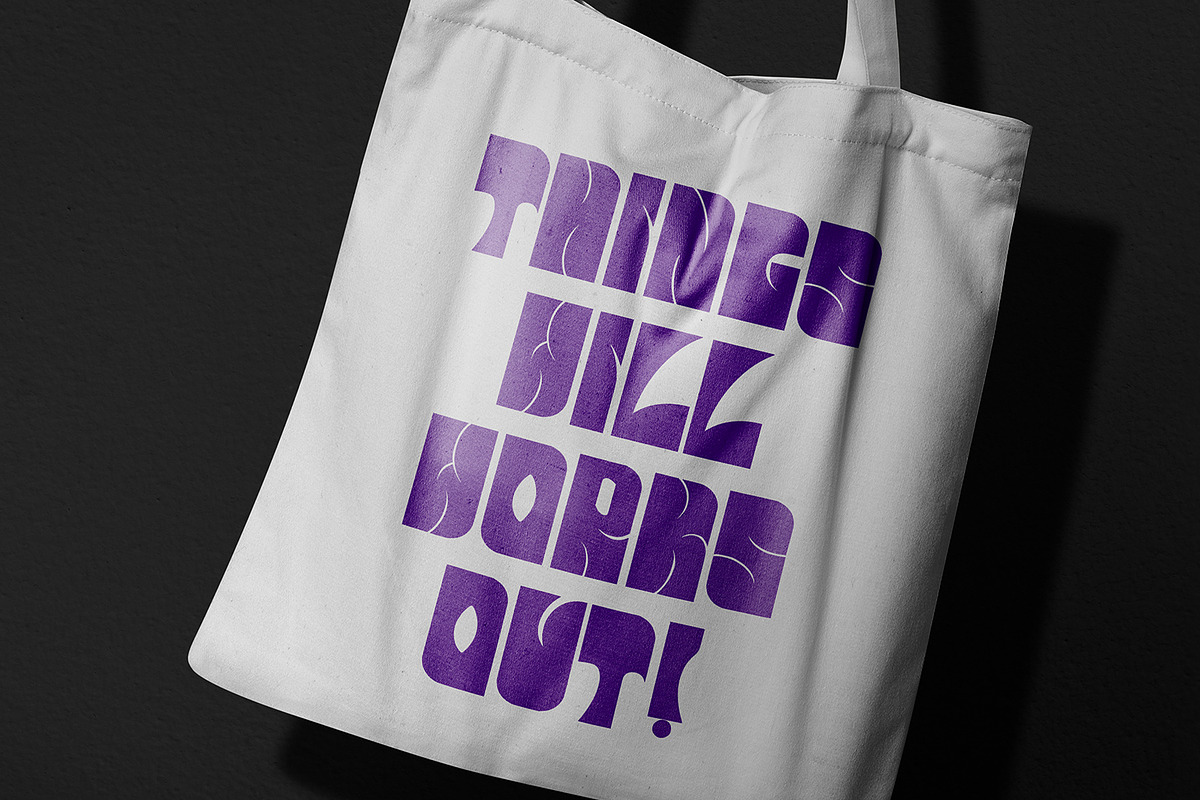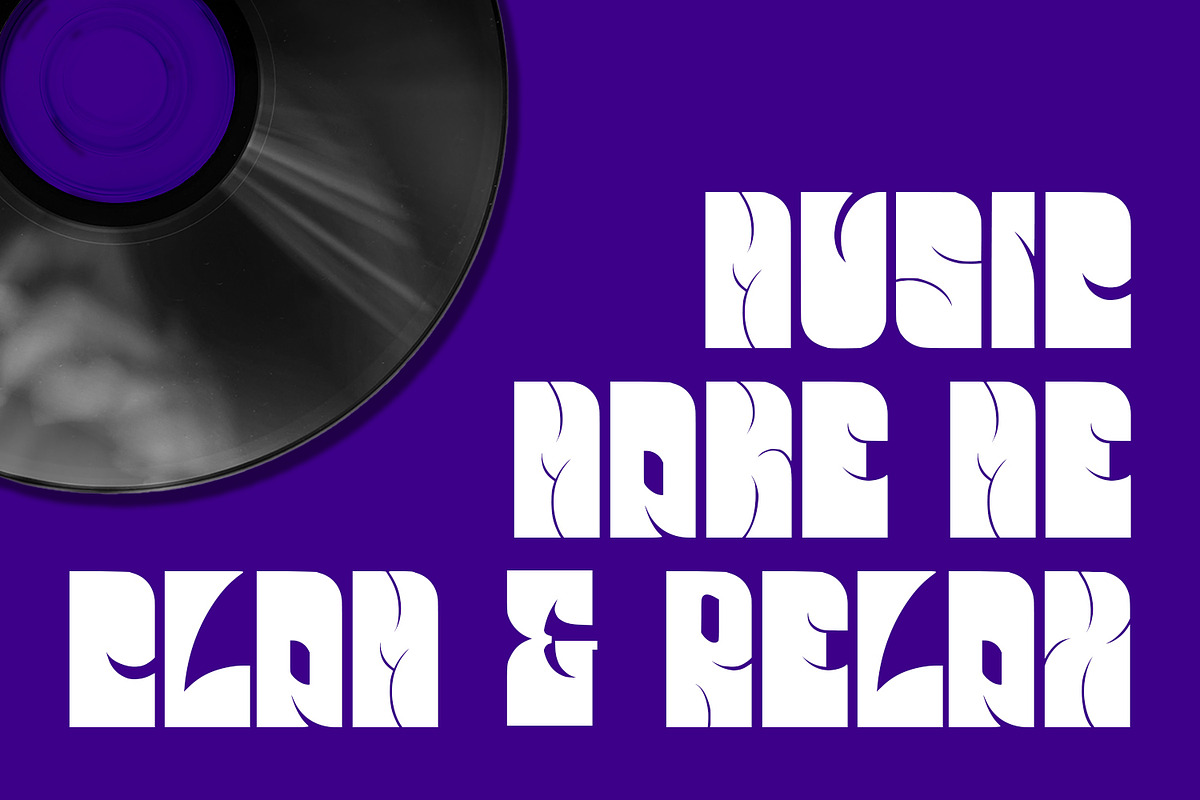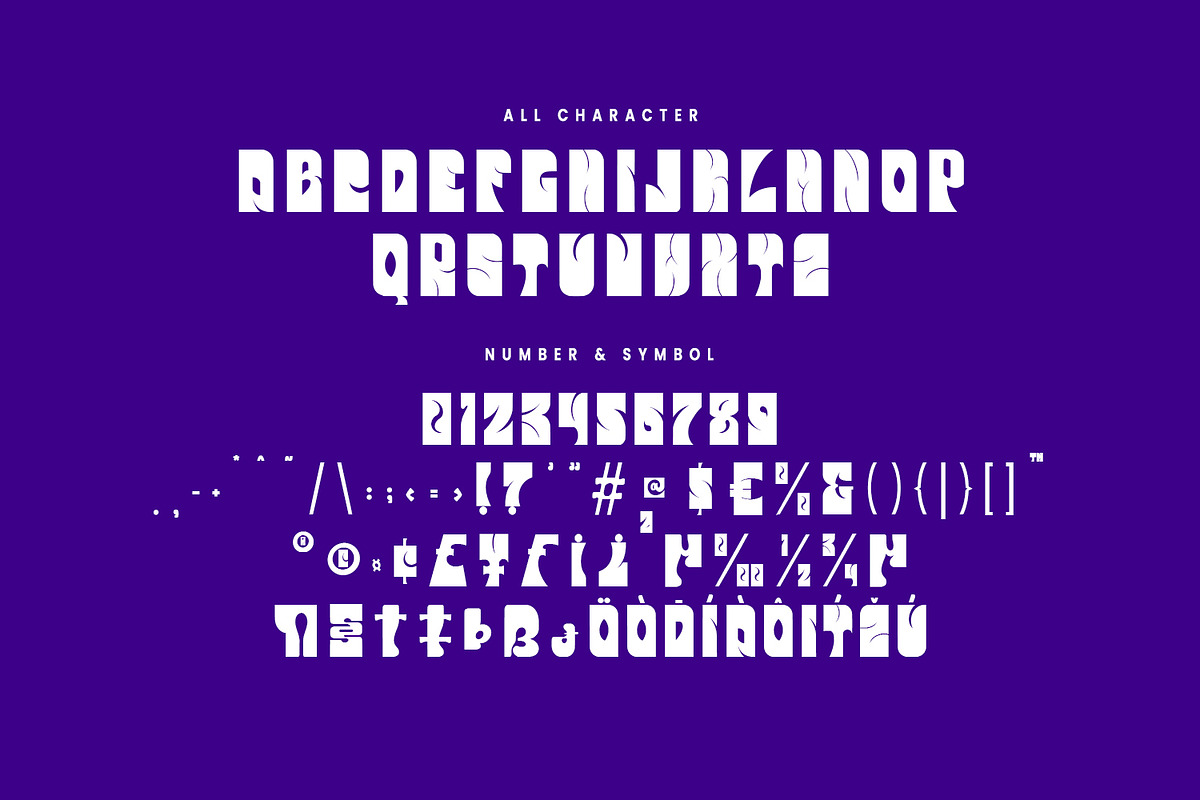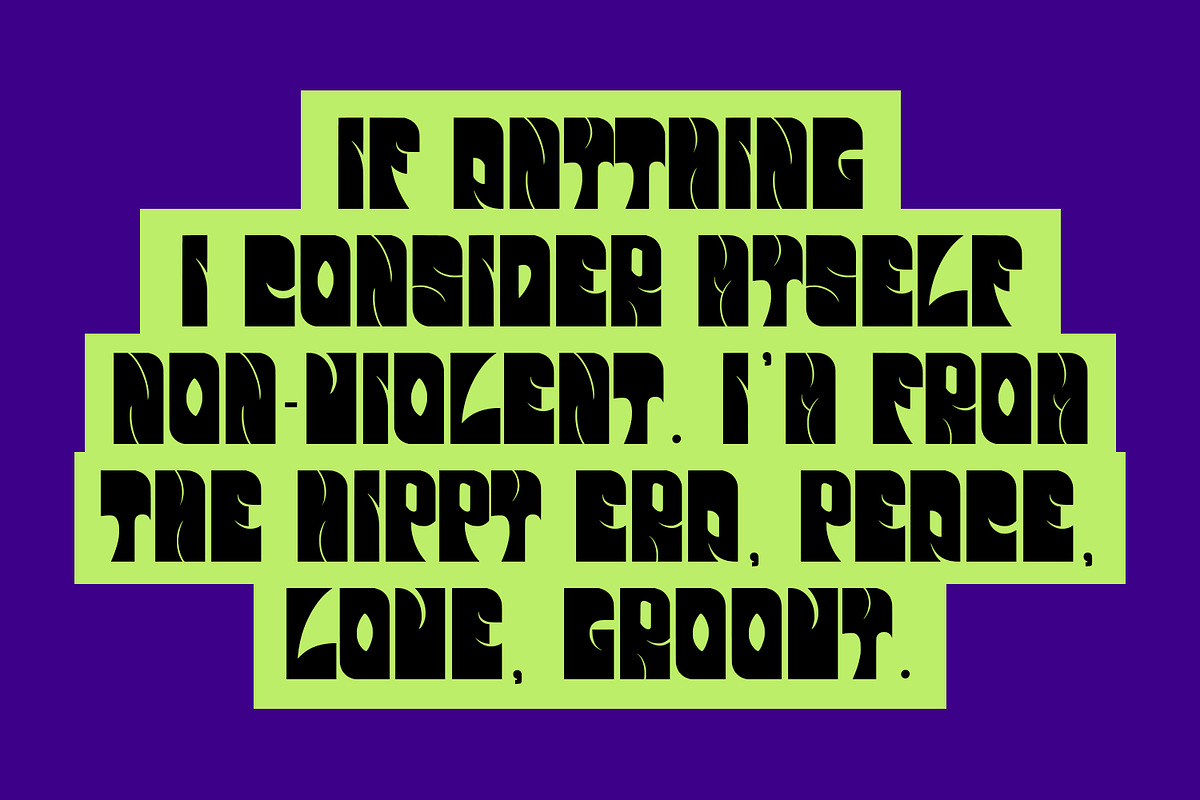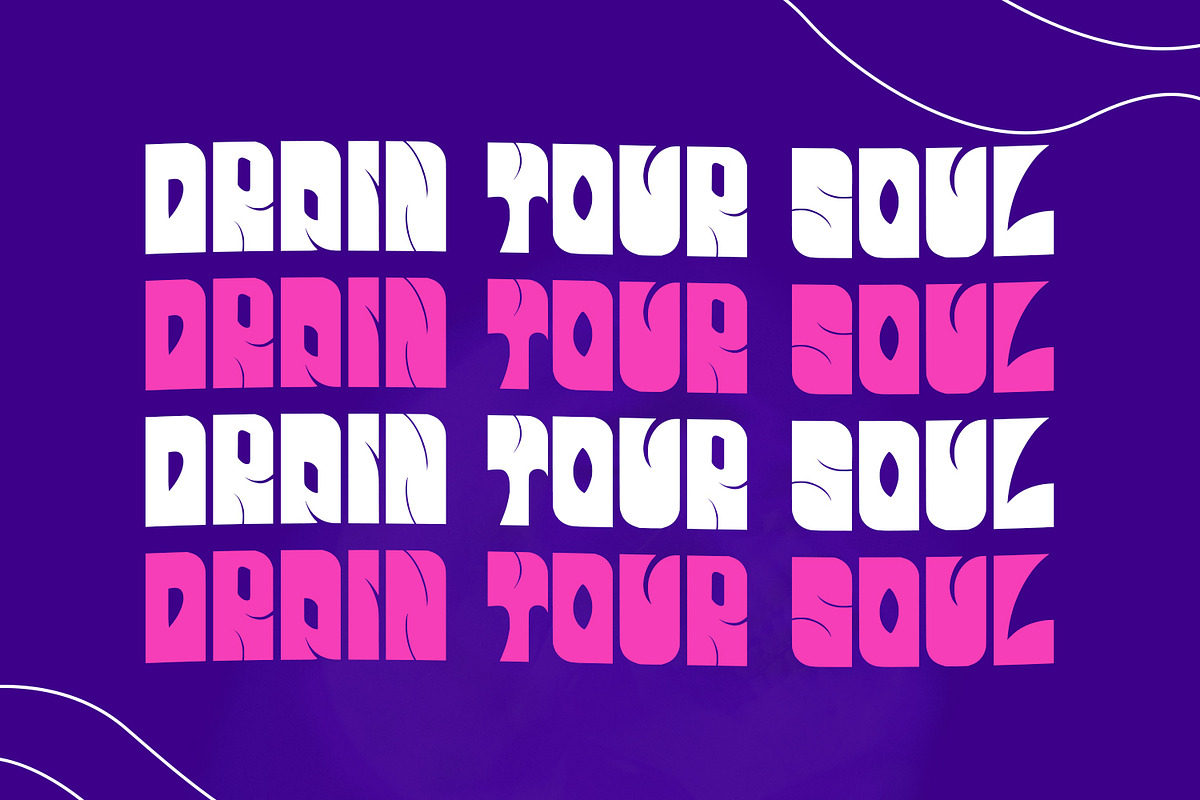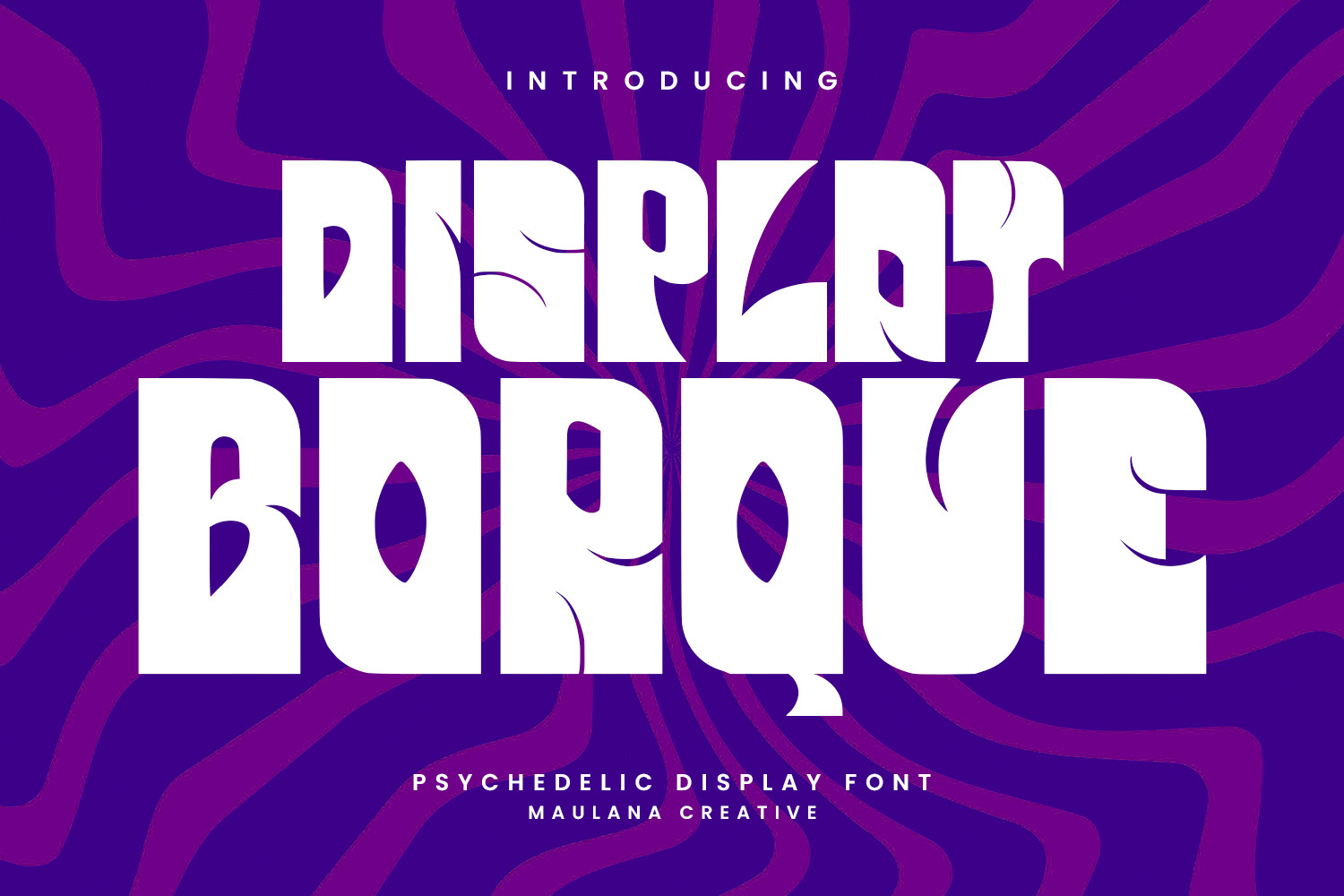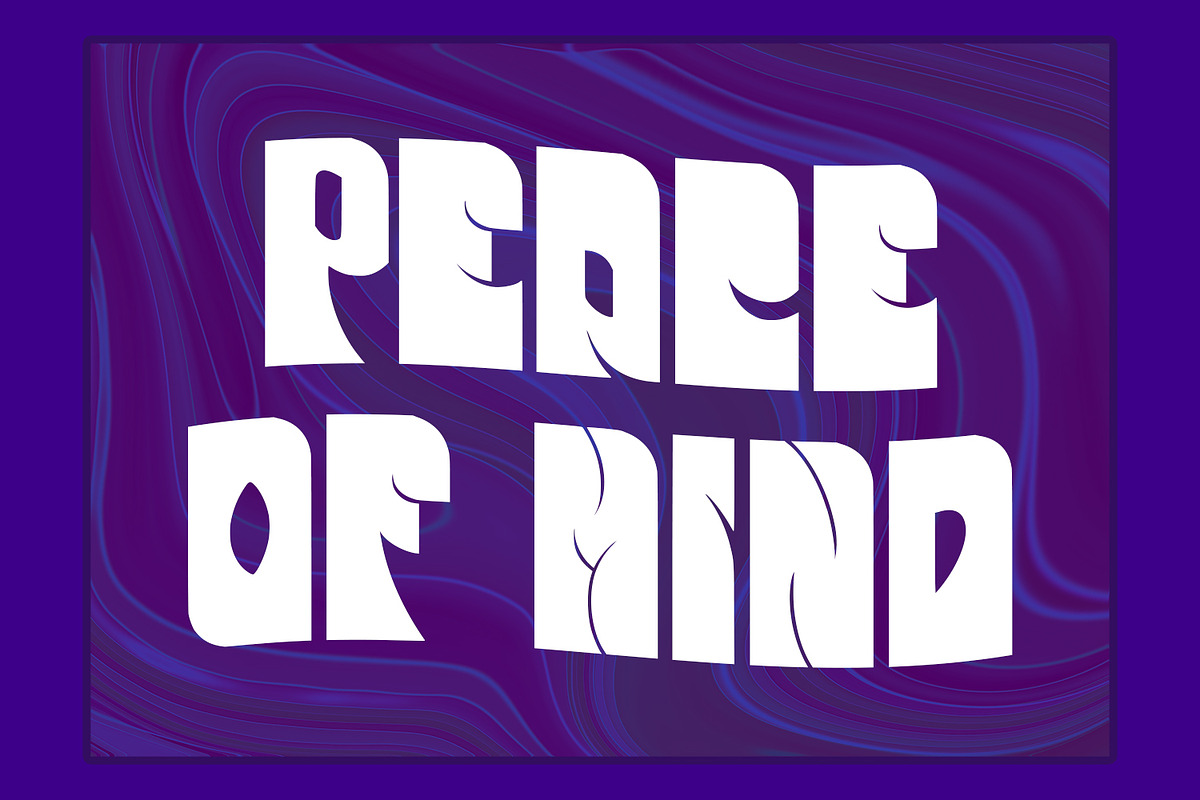
Borque Display Font
Borque display font. Heavy stroke, fun characters. To give you an extra creative work. Borque display font support multilingual language. This font is good for logo design, Social media, Movie Titles, Books Titles, a short text even a long text letter and good for your secondary text font with script or serif. Make a stunning work with Borque display font.